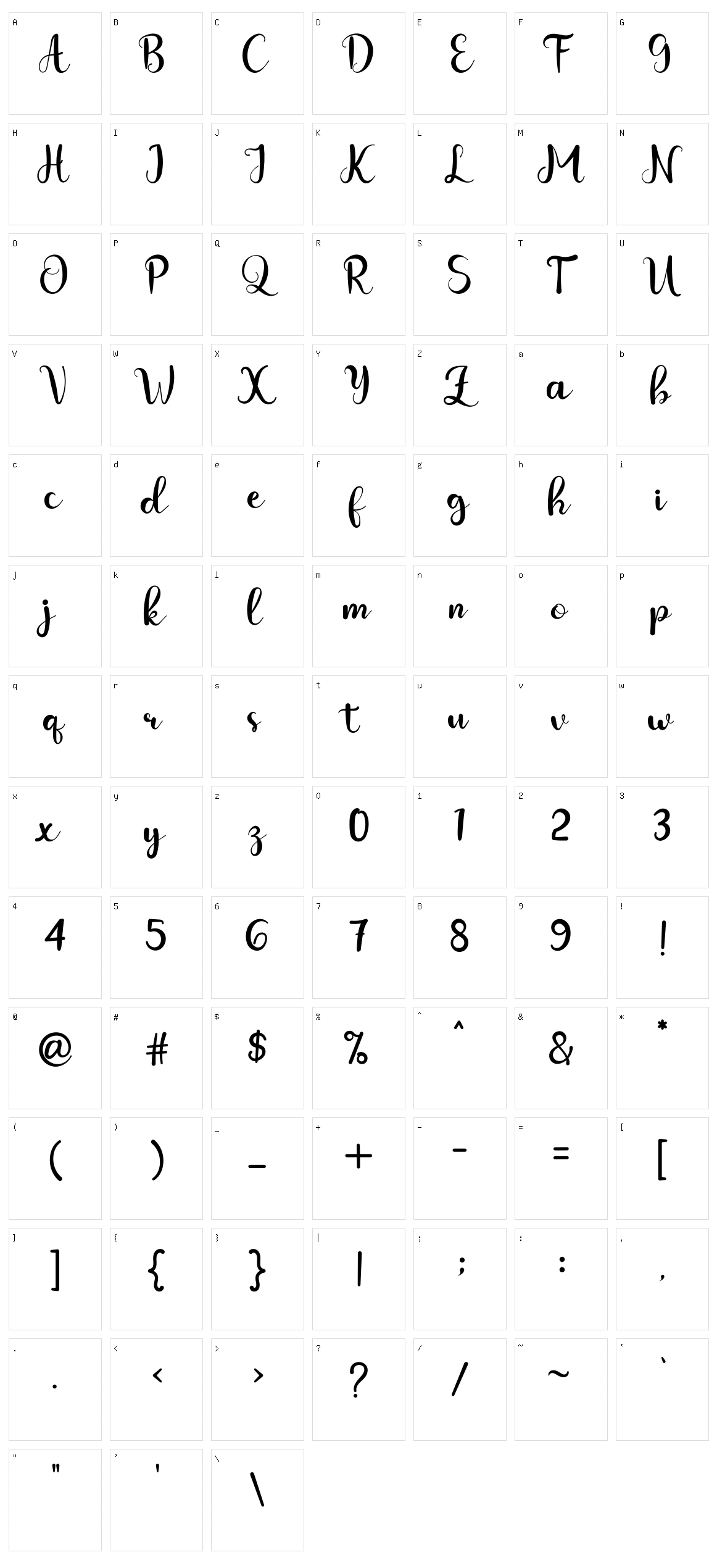
The free font Yellow Flower is carefully designed by Dedi Mujiono, showcasing a thoughtful balance of creativity and usability and falls under the Script font style. When you download the ZIP file, it contains only 119.26 KB of font files, making it lightweight and quick to download. Please review the license details below to understand permitted usage and distribution rights. If license information is not available, we recommend using this font for personal projects only or contacting the author directly for commercial usage permissions.